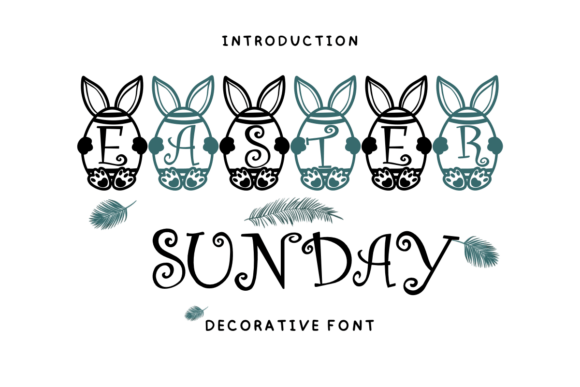
Discover the Magic of Easter Sunday Font
Remember the last time you sat down with a blank journal page, a blank canvas waiting to be transformed into a masterpiece of your thoughts and emotions? The pen glides effortlessly across the paper, and your imagination takes over. It’s in these moments of pure creativity that the Easter Sunday Font comes alive, adding a personal touch to every word, every line, and every stroke.
With its unique blend of elegance and whimsy, the Easter Sunday Font is the perfect companion for designers, artists, and writers who crave to add a human touch to their work. Whether you’re crafting heartfelt greeting cards, designing social media posts, or embellishing stationery, this font brings a special charm to every project, making it truly one-of-a-kind. By incorporating the Easter Sunday Font into your design repertoire, you’ll be able to unlock a world of limitless possibilities and make every creation feel truly special.
Easter Sunday Font Key Features
- Unique Characteristics: Easter Sunday Font features a unique, hand-drawn design with intricate details and ornaments, giving it a distinctive and festive look.
Easter Sunday Font Review
I recently had the chance to work with the Easter Sunday Font, and I must say it’s a unique and intriguing choice. Here are my honest thoughts:
- Expressive and playful feel: The Easter Sunday Font has a whimsical and joyful vibe that’s perfect for projects with a lighthearted or celebratory tone.
- Great for titles and headings: The font’s bold and eye-catching nature makes it ideal for use in titles, headings, and other prominent text elements.
- Highly legible: Despite its cursive nature, the Easter Sunday Font is surprisingly easy to read, even at smaller font sizes.
- Limited font sizes: The Easter Sunday Font starts to lose its legibility and charm at smaller font sizes (less than 14pt).
- Not suitable for body text: Due to its ornate and flowing nature, the font is not ideal for large blocks of text or body copy.
- Might be distracting: For some projects, the Easter Sunday Font’s playful feel might be too much, and it could end up distracting from the content.
The Easter Sunday Font is a solid choice for projects where a touch of whimsy and fun is needed. While it has its limitations, it’s a great option for titles, headings, and other promotional materials. However, it’s not a good fit for body text or projects where a more straightforward, serious tone is required.
Use the Easter Sunday Font to create eye-catching headings and titles for Easter-themed projects. Experiment with different font sizes and colors to add visual interest.
Use the Easter Sunday Font for Easter-themed projects, such as invitations, posters, and social media graphics. It’s also a great font to use for spring-themed projects, such as garden party invitations and floral arrangements.